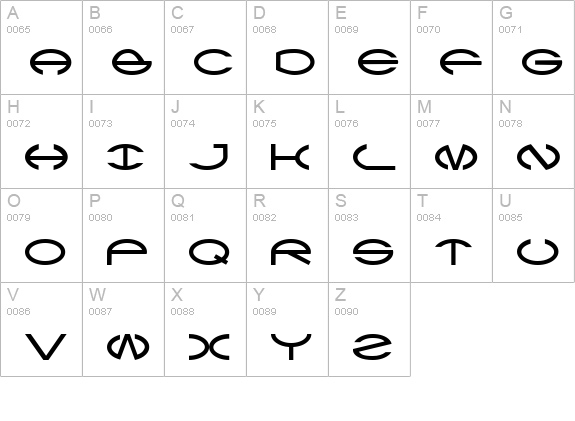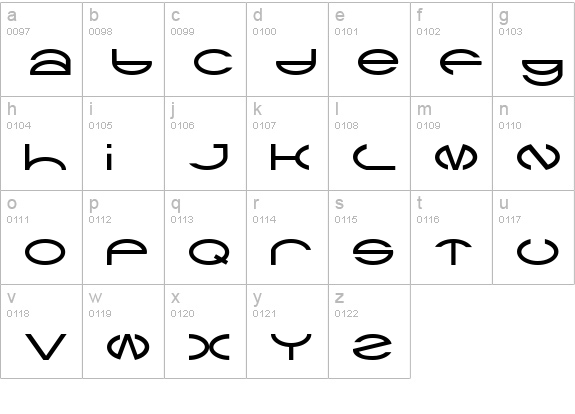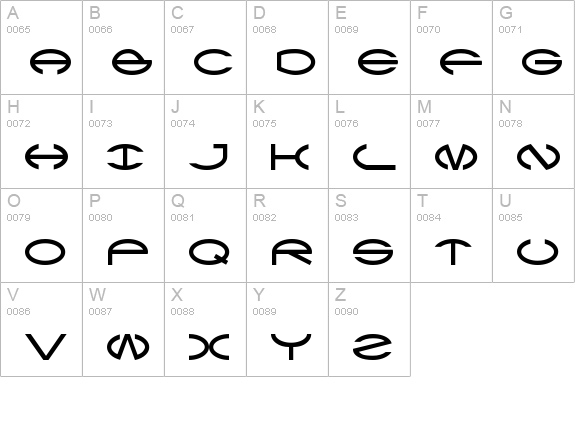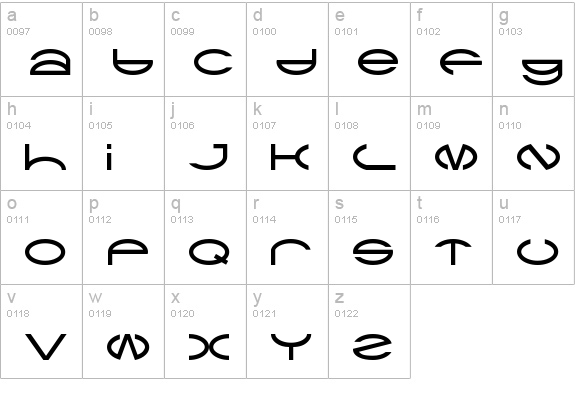
CType AOE Font Details
The CType AOE font is a stunning display typeface that exudes elegance and sophistication. With its unique design and intricate details, this font is perfect for creating eye-catching headlines, logos, and branding materials. The CType AOE font is available for free download at FontsMarket.com, making it accessible to all designers and creatives looking to add a touch of class to their projects. Embrace the beauty of this exquisite font and elevate your designs to new heights with the CType AOE font.